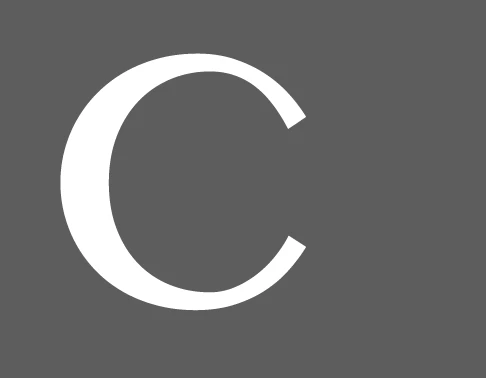
I got it from the default illustrator cc fonts, and then I converted it to an outline object and I couldn't find the original text's font! Do you know what it is? I've tried searching all of the font identifying sites but to no avail.
Either that is Peignot Demi, or something pretty nearly identical for that letter.
"Exotic 350 BT" is a common knockoff of Peignot, that is bundled with many applications.